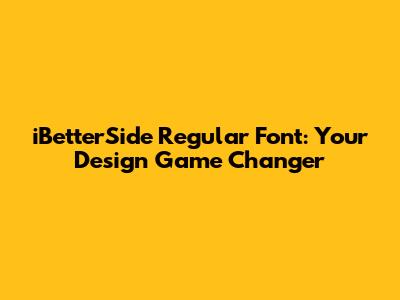
Hey there, design enthusiasts and content creators! Ever found yourself scrolling endlessly through fonts, trying to find that perfect one that just clicks? Well, guys, today we're diving deep into a font that might just become your new go-to: iBetterSide Regular Font. This isn't just any typeface; it's a versatile, clean, and incredibly legible option that can truly elevate your projects, whether you're crafting a sleek website, designing a vibrant poster, or putting together a compelling presentation. We're talking about a font that strikes a beautiful balance between modern aesthetics and timeless readability, making it an excellent choice for a myriad of applications. Think of it as that reliable best friend in your design toolkit – always there to make things look good and perform even better. Throughout this article, we're going to explore what makes iBetterSide Regular Font so special, where it shines brightest, and how you can harness its full potential to make your design work stand out in a crowded digital world. So, grab a coffee, settle in, and let's unlock the secrets to mastering this fantastic font together. You'll soon see why so many designers are falling in love with its understated elegance and powerful utility. From branding to editorial, iBetterSide Regular Font offers a consistency and clarity that few others can match, ensuring your message is not just seen, but truly read and understood. We'll delve into its characteristics, its ideal use cases, and even share some pro tips on how to pair it with other fonts for maximum impact. Get ready to transform your design projects with this remarkable typeface!
What Makes iBetterSide Regular Font Stand Out?
So, what exactly sets iBetterSide Regular Font apart from the seemingly endless sea of typefaces available today? Guys, it all comes down to its meticulously crafted design principles that prioritize clarity, balance, and a modern aesthetic. First and foremost, the core characteristic of iBetterSide Regular Font is its exceptional legibility. Each letterform is designed with careful attention to detail, ensuring that characters are distinct and easy to differentiate, even at smaller sizes or across various digital screens. This makes it an incredibly reliable choice for body text in articles, paragraphs on websites, or detailed captions where readability is absolutely paramount. You won't find yourself squinting or struggling to decipher words when this font is in play. Furthermore, its modern yet approachable feel is a huge win. It manages to feel contemporary without being overly trendy, which gives it a fantastic longevity that many other fonts lack. This isn't a fleeting trend; it's a classic in the making. The consistent stroke widths, well-proportioned ascenders and descenders, and intelligent spacing contribute to a harmonious visual flow that is pleasing to the eye. It doesn't scream for attention but rather commands it through its inherent professionalism and neatness. Think about a finely tailored suit; it doesn't need loud patterns to make an impression, its quality speaks for itself. That's iBetterSide Regular Font for you. It carries a subtle elegance that can elevate any design without overpowering other elements. For those of you who appreciate clean lines and a sense of order in your visual communications, this font delivers on all fronts. Its neutral tone means it can blend seamlessly into various brand identities, from minimalist startups to established corporate entities, offering a canvas on which your content can truly shine. It's truly a versatile workhorse, capable of adapting to diverse design requirements while always maintaining its inherent qualities of clarity and style. We're talking about a font that provides a solid foundation for any visual project, making it easier for your audience to consume information and connect with your message. This thoughtful design minimizes visual noise, allowing your content to take center stage, which is always the ultimate goal for effective communication. The careful consideration of kerning and leading also ensures that lines of text are comfortable to read, preventing the cramped or overly loose appearance that can plague lesser fonts.
Applications and Use Cases for iBetterSide Regular Font
Alright, guys, now that we've gushed about what makes iBetterSide Regular Font so awesome, let's talk about where you can actually put this gem to work! The beauty of this typeface lies in its incredible versatility, making it a fantastic choice for a dizzying array of design projects. Firstly, in the realm of web design, iBetterSide Regular Font is an absolute powerhouse. Its exceptional legibility and clean aesthetic mean it's perfect for website body text, navigation menus, and even headings. Imagine a blog post where every paragraph is effortlessly readable, guiding your audience through your content with ease. Or a sleek e-commerce site where product descriptions are clear and concise, boosting customer confidence. It scales beautifully across different devices, from large desktop monitors to tiny smartphone screens, maintaining its clarity without distortion. This ensures a consistent and enjoyable user experience, which, as we all know, is crucial for keeping visitors engaged. Moving onto print media, this font truly shines. Think about brochures, flyers, magazines, or even business cards. The professional yet friendly vibe of iBetterSide Regular Font makes it suitable for conveying information in an approachable manner. For instance, a beautifully designed annual report or a compelling marketing brochure can greatly benefit from its organized and polished look. You want your print materials to feel premium and trustworthy, and this font absolutely delivers on that front. And let's not forget branding and identity. For businesses looking to establish a brand presence that is both modern and reliable, iBetterSide Regular Font can be a core element. It works wonders for company logos, stationery, and brand guidelines, projecting an image of professionalism and clarity. It's a font that says,